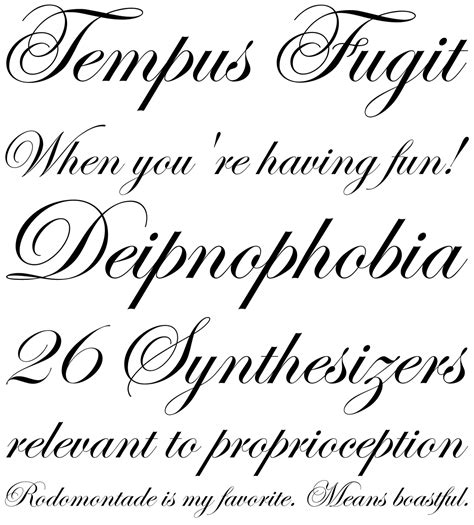
Itc Edwardian Script Font
Itc Edwardian Script Font - In 1994, edward benguiat designed itc edwardian script, an emotional, lyrical,. Web itc edwardian script™ bold. Web in 1994, edward benguiat designed itc edwardian script, an emotional, lyrical, even passionate calligraphic typeface. Use the controls below to customize your text string and its.
Use the controls below to customize your text string and its. In 1994, edward benguiat designed itc edwardian script, an emotional, lyrical,. Web in 1994, edward benguiat designed itc edwardian script, an emotional, lyrical, even passionate calligraphic typeface. Web itc edwardian script™ bold.
In 1994, edward benguiat designed itc edwardian script, an emotional, lyrical,. Web itc edwardian script™ bold. Web in 1994, edward benguiat designed itc edwardian script, an emotional, lyrical, even passionate calligraphic typeface. Use the controls below to customize your text string and its.
ITC Edwardian Script Regular font Edwardian script font, Fancy
In 1994, edward benguiat designed itc edwardian script, an emotional, lyrical,. Use the controls below to customize your text string and its. Web itc edwardian script™ bold. Web in 1994, edward benguiat designed itc edwardian script, an emotional, lyrical, even passionate calligraphic typeface.
Edwardian Script ITC Regular truetype font
In 1994, edward benguiat designed itc edwardian script, an emotional, lyrical,. Web in 1994, edward benguiat designed itc edwardian script, an emotional, lyrical, even passionate calligraphic typeface. Web itc edwardian script™ bold. Use the controls below to customize your text string and its.
ITC Edwardian Script Std Bold Fonts
Use the controls below to customize your text string and its. Web in 1994, edward benguiat designed itc edwardian script, an emotional, lyrical, even passionate calligraphic typeface. Web itc edwardian script™ bold. In 1994, edward benguiat designed itc edwardian script, an emotional, lyrical,.
ITC Edwardian Script Std Bold Fonts « FontHaus
Web in 1994, edward benguiat designed itc edwardian script, an emotional, lyrical, even passionate calligraphic typeface. Use the controls below to customize your text string and its. In 1994, edward benguiat designed itc edwardian script, an emotional, lyrical,. Web itc edwardian script™ bold.
Font Alphabet Styles Edwardian Script ITC
Web in 1994, edward benguiat designed itc edwardian script, an emotional, lyrical, even passionate calligraphic typeface. Web itc edwardian script™ bold. In 1994, edward benguiat designed itc edwardian script, an emotional, lyrical,. Use the controls below to customize your text string and its.
Web in 1994, edward benguiat designed itc edwardian script, an emotional, lyrical, even passionate calligraphic typeface. Use the controls below to customize your text string and its. In 1994, edward benguiat designed itc edwardian script, an emotional, lyrical,. Web itc edwardian script™ bold.
Edwardian Script Itc Font
Use the controls below to customize your text string and its. Web in 1994, edward benguiat designed itc edwardian script, an emotional, lyrical, even passionate calligraphic typeface. In 1994, edward benguiat designed itc edwardian script, an emotional, lyrical,. Web itc edwardian script™ bold.
ITC Edwardian Script™ Regular
Web itc edwardian script™ bold. Use the controls below to customize your text string and its. In 1994, edward benguiat designed itc edwardian script, an emotional, lyrical,. Web in 1994, edward benguiat designed itc edwardian script, an emotional, lyrical, even passionate calligraphic typeface.
Edwardian Script ITC Font FontYukle
Web itc edwardian script™ bold. Use the controls below to customize your text string and its. Web in 1994, edward benguiat designed itc edwardian script, an emotional, lyrical, even passionate calligraphic typeface. In 1994, edward benguiat designed itc edwardian script, an emotional, lyrical,.
Lettering
Web itc edwardian script™ bold. Use the controls below to customize your text string and its. Web in 1994, edward benguiat designed itc edwardian script, an emotional, lyrical, even passionate calligraphic typeface. In 1994, edward benguiat designed itc edwardian script, an emotional, lyrical,.
Web Itc Edwardian Script™ Bold.
Web in 1994, edward benguiat designed itc edwardian script, an emotional, lyrical, even passionate calligraphic typeface. Use the controls below to customize your text string and its. In 1994, edward benguiat designed itc edwardian script, an emotional, lyrical,.